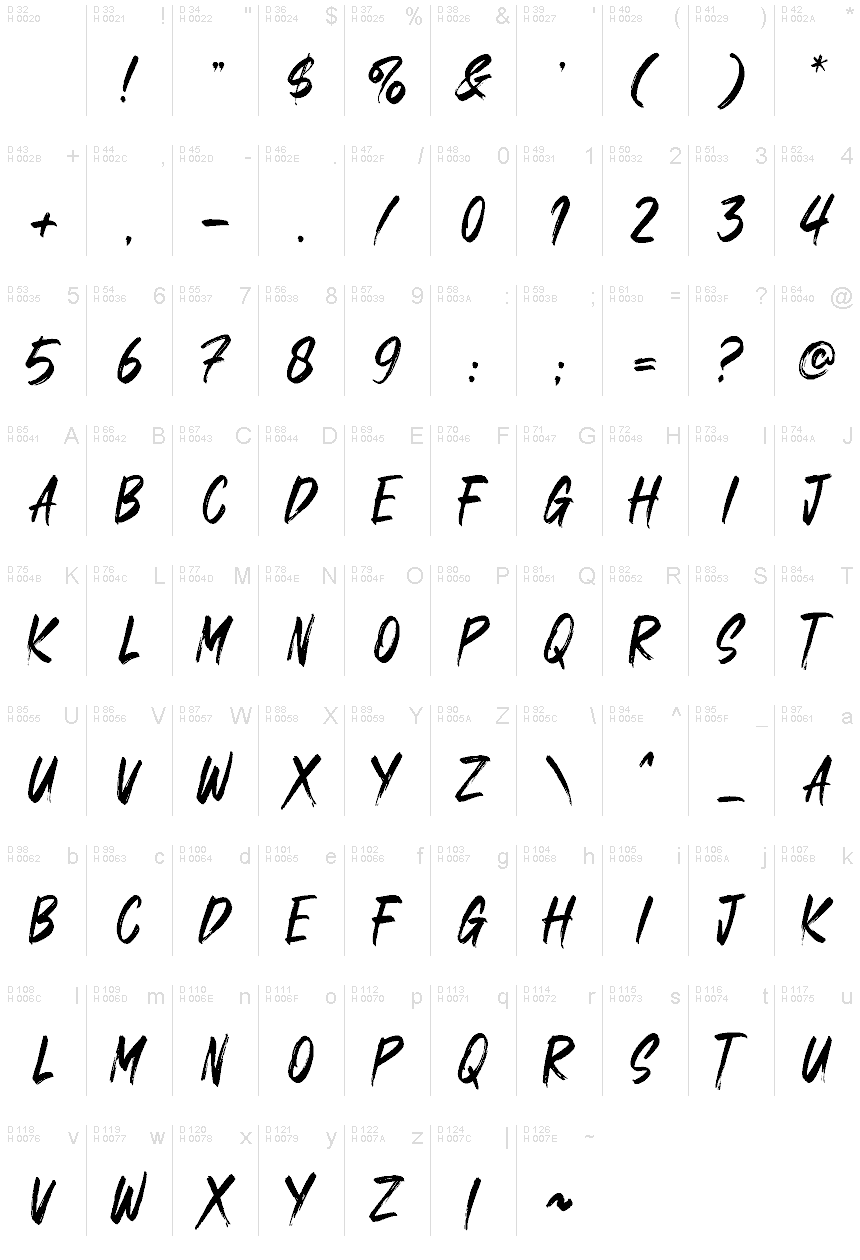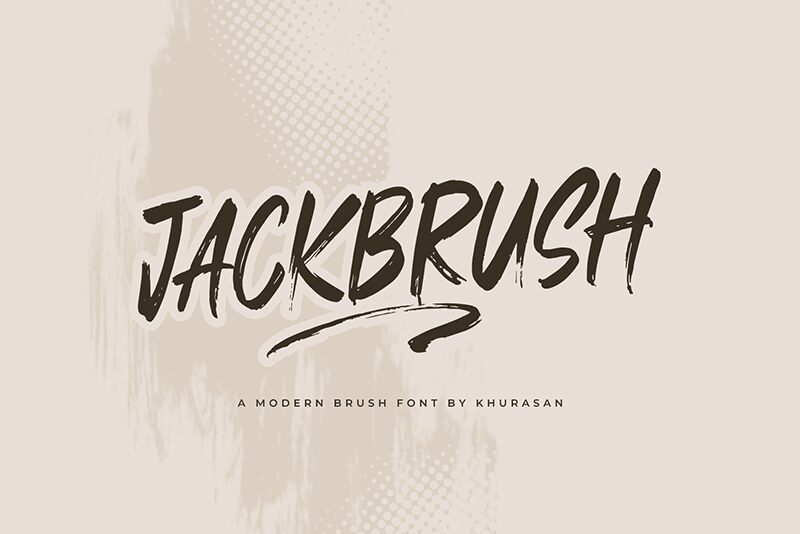
Jackbrush
Jackbrush font by Khurasan is an expressive brush script with a contemporary appeal. It has a friendly and energetic feel that’s easily experienced even from a short look at the font and its alternate characters or swashes. This free font, in addition to being highly artistic, is greatly recognizable for its originality.
Consider Jackbrush in packaging design, apparel items design, album covers, posters, social media posts or blog posts banners. Also suitable for landing pages hero sections or multiple other graphic designs that require standout typography.